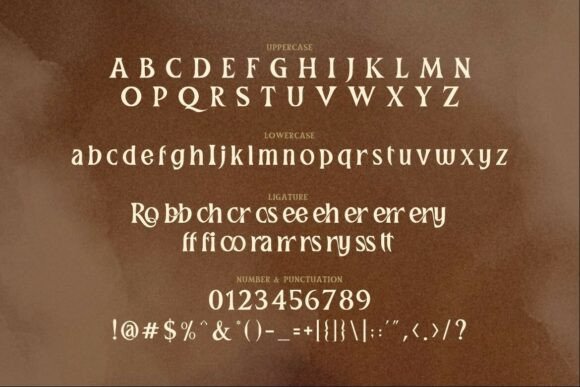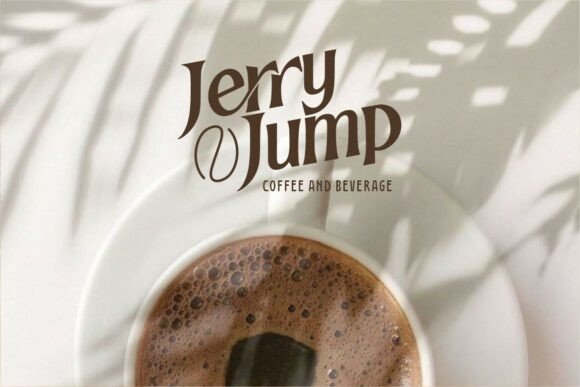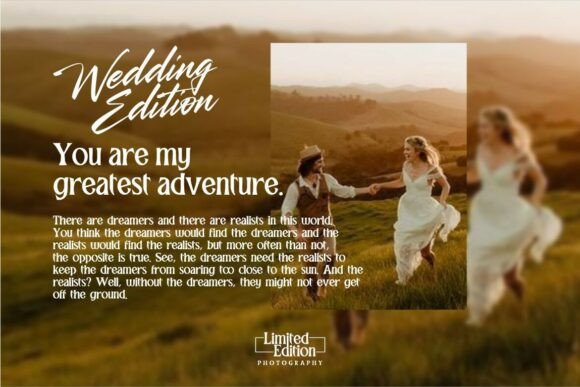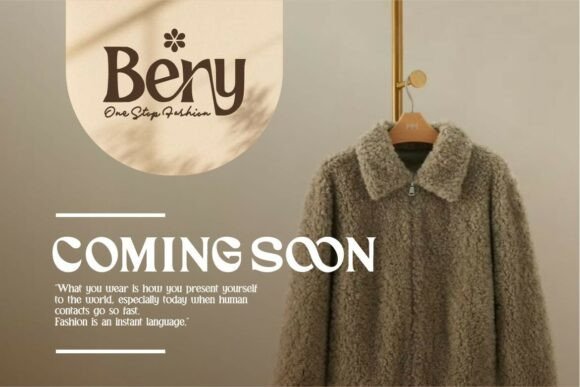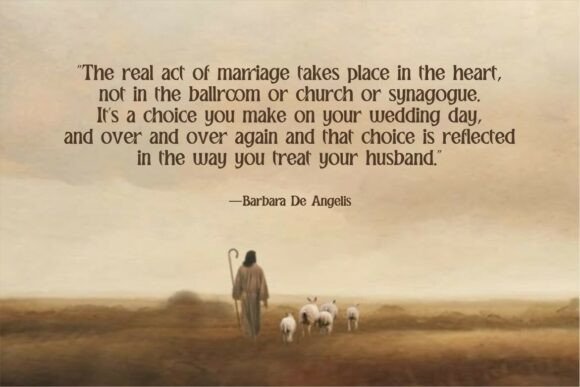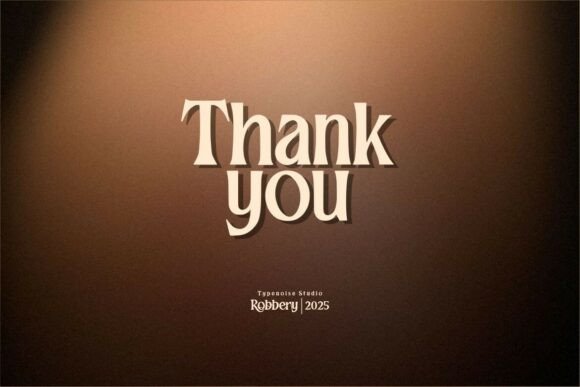
Introduction to Robbery Font
**Robbery** is a modern serif font that blends classic elegance with artistic flair.
| ๐ค Author | Typenoise |
Designed with expressive curves, stylish ligatures, and graceful swashes, this typeface brings a distinctive personality to any project Each letter is crafted to deliver a luxurious, high-end feel, making Robbery the perfect choice for designers who want a look thatโs bold, refined, and unforgettable.
Key Features of Robbery Font
Why Choose Robbery Font?
Robbery Font offers exceptional quality and versatility, making it a valuable addition to your design toolkit. Whether you’re creating for personal projects or commercial use, Robbery Font delivers professional results.